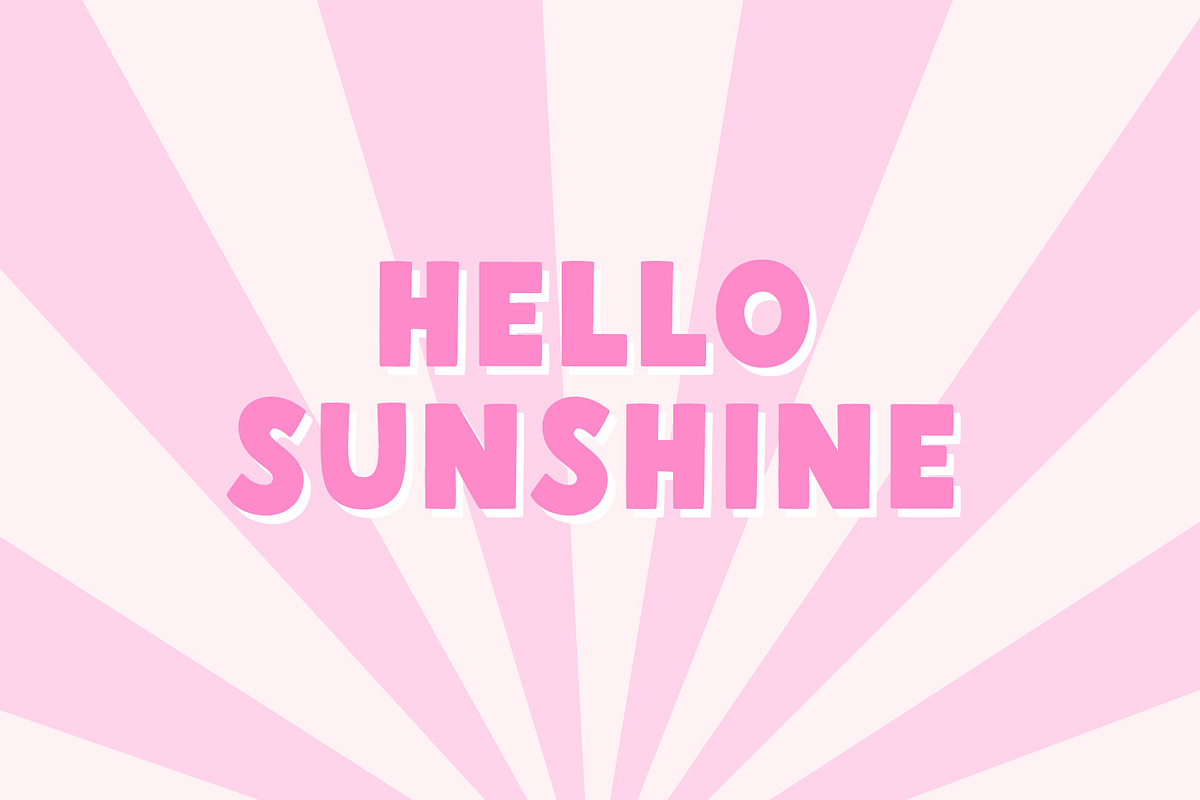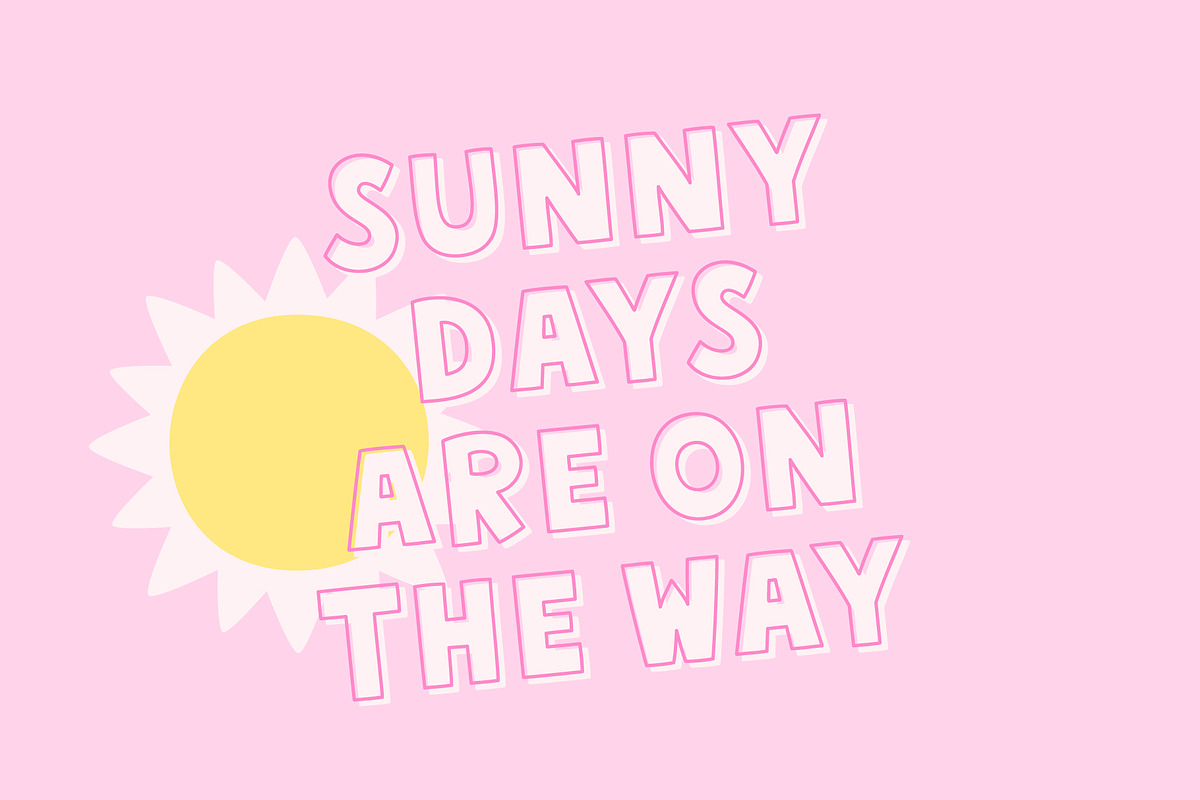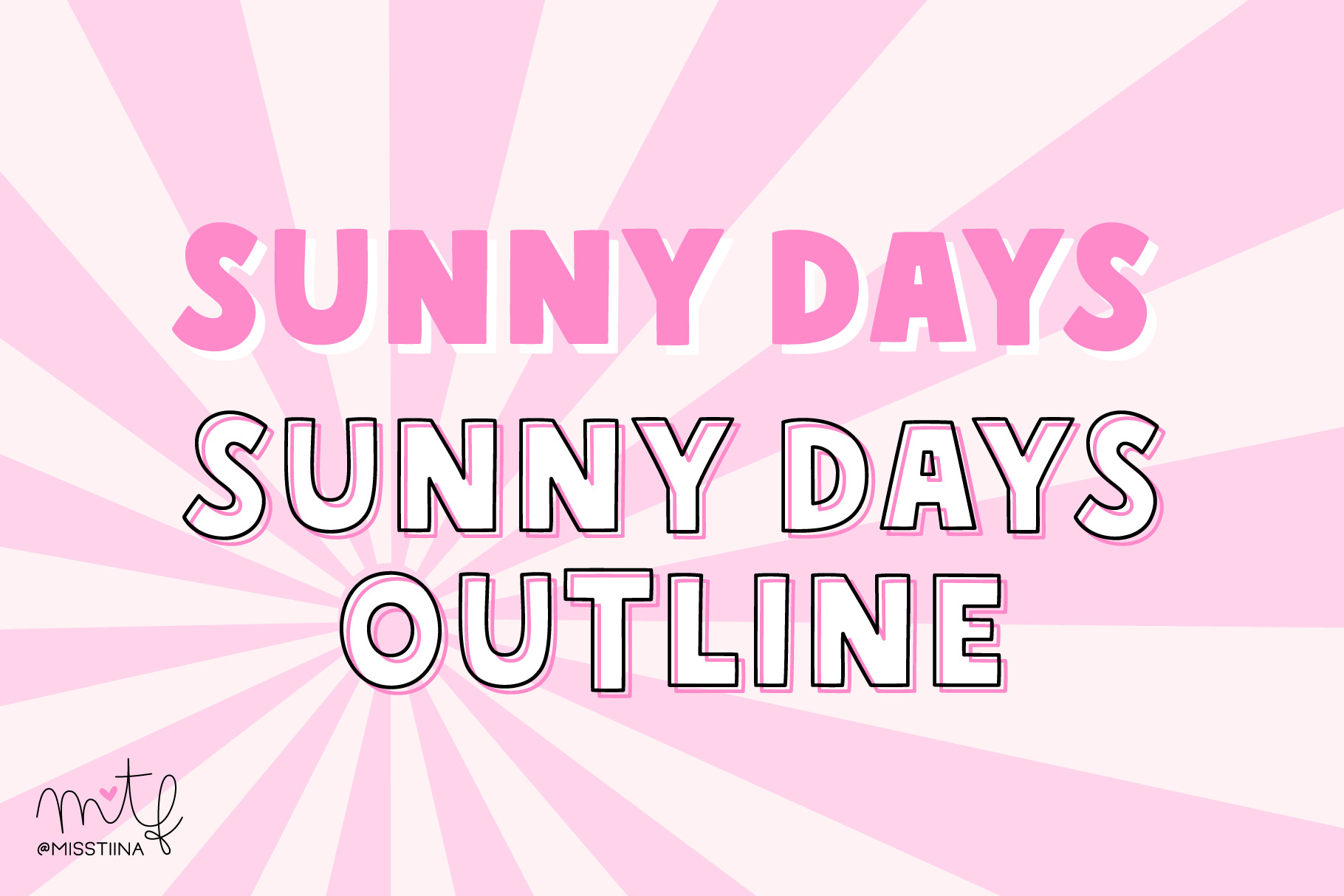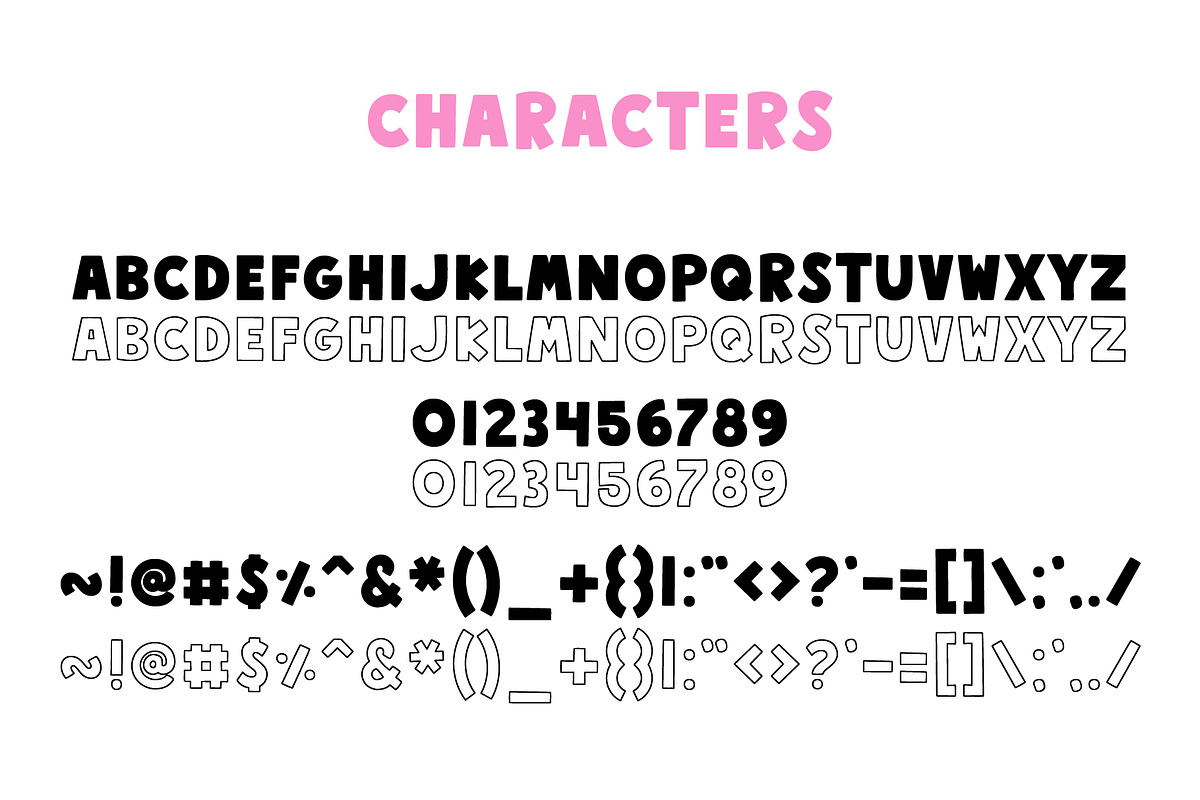
Sunny Days Font Duo
Sunny Days is a fun, cartoon-like display font capable of taking any product out of the ordinary! Use it on bold and bright creations such as banners, posters, covers, titles, magazines, etc.